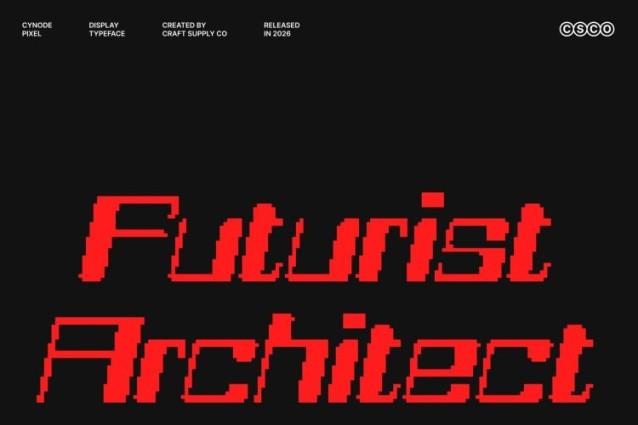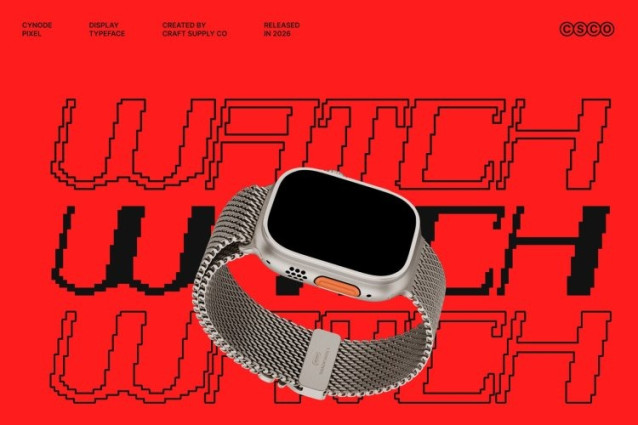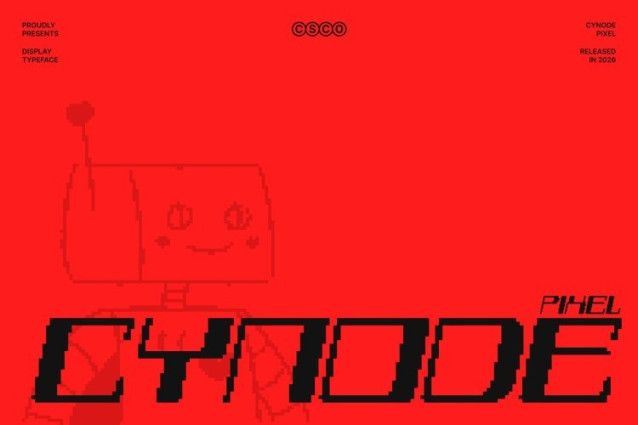
Cynode Pixel Font
Cynode Pixel Font This is a modern display font defined by bold, square-shaped geometry and angular construction. Its structured letterforms deliver a strong contemporary presence, making it ideal for designs that demand precision, confidence, and a cutting-edge visual identity.
Inspired by Future Living and Innovation
Rooted in visions of future lifestyles and advanced technology, captures the essence of progress and innovation. Its geometric forms echo futuristic architecture and digital systems, expressing a mindset focused on advancement, efficiency, and modernity.
Sleek Minimalism with Pixel Precision
With clean lines and a minimalist approach, this font balances simplicity and impact. The pixel-influenced geometry enhances clarity while maintaining a bold, futuristic aesthetic, ensuring excellent readability without sacrificing style or character.
Perfect for Futuristic and Tech-Driven Projects
This font is an ideal choice for branding, digital interfaces, signage, posters, and sci-fi or tech-inspired visuals. Its strong geometric presence sets a forward-looking tone, making every design feel innovative, modern, and unmistakably future-ready.